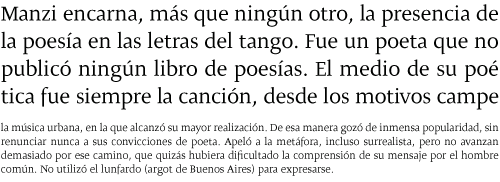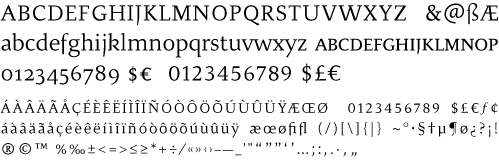
4 STYLES in OTF regular, italic, bold
and bolditalic.
alena is a typographic family created by Lentino and Muhafara like a shared working project which integrates both views on typography as a whole. It is a good typeface
to be used in lengthy texts with a wide range of variables, having a striking contrast, with consistent features and standard performance, Ideal to be used in paper with very good finish.
MALENA | 4 STYLES in OTF regular, italic, bold and bolditalic. Small Caps available
in regular and bold